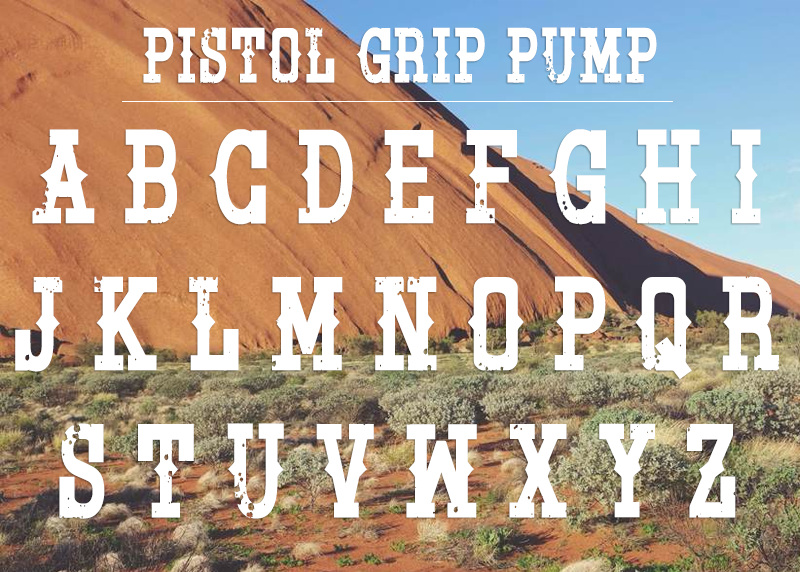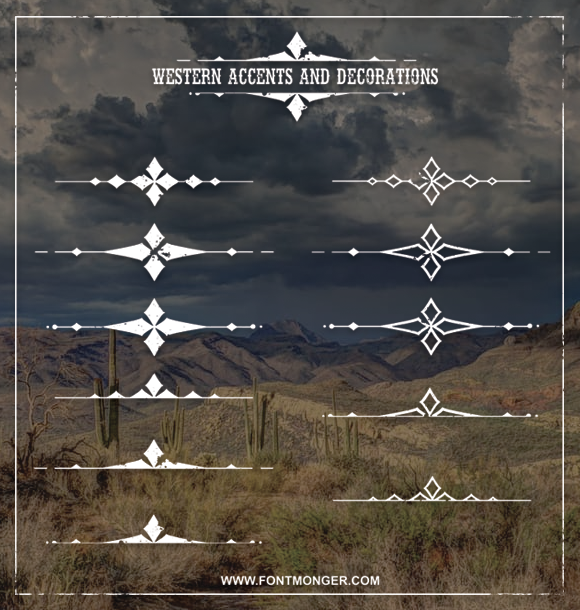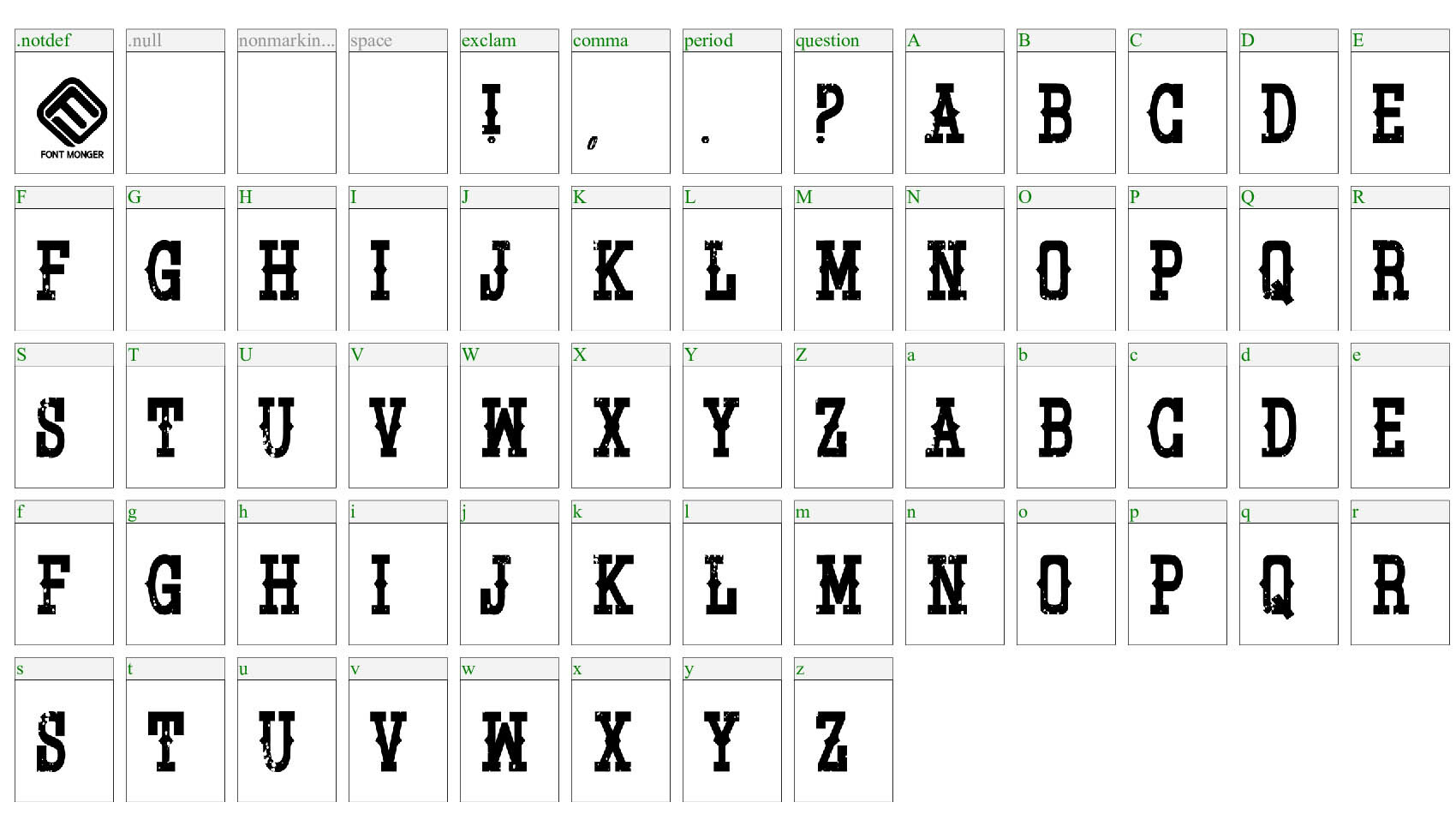
Pistol Grip Pump is an all caps western themed font
Lowercase: Same as uppercase
Numbers: No
Symbols & Punctuation: Exclamation point, question mark, comma, and period only
Accents: No
Styles: Solid and Eroded
Theme: Western
Font includes these western borders and rulers to use with your font: